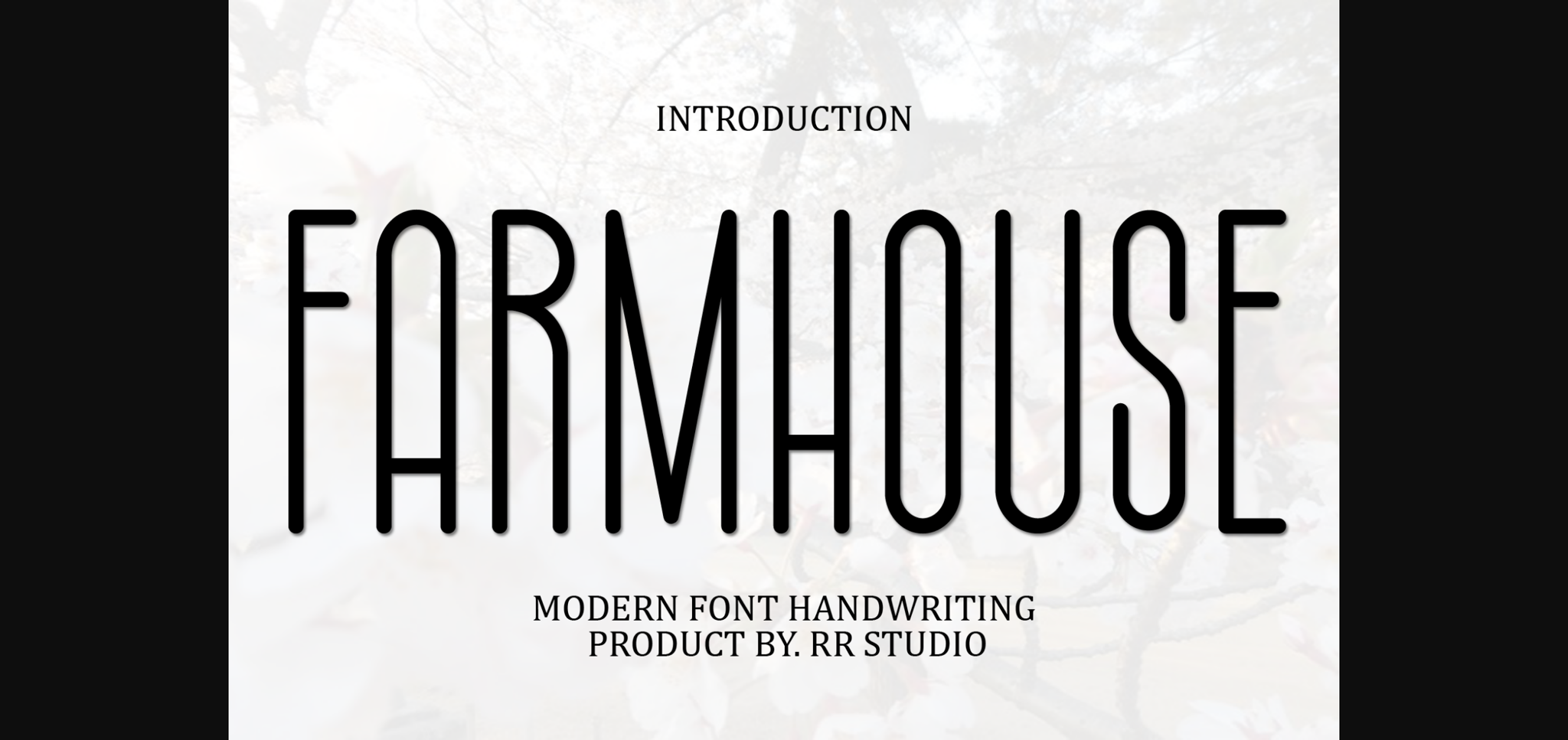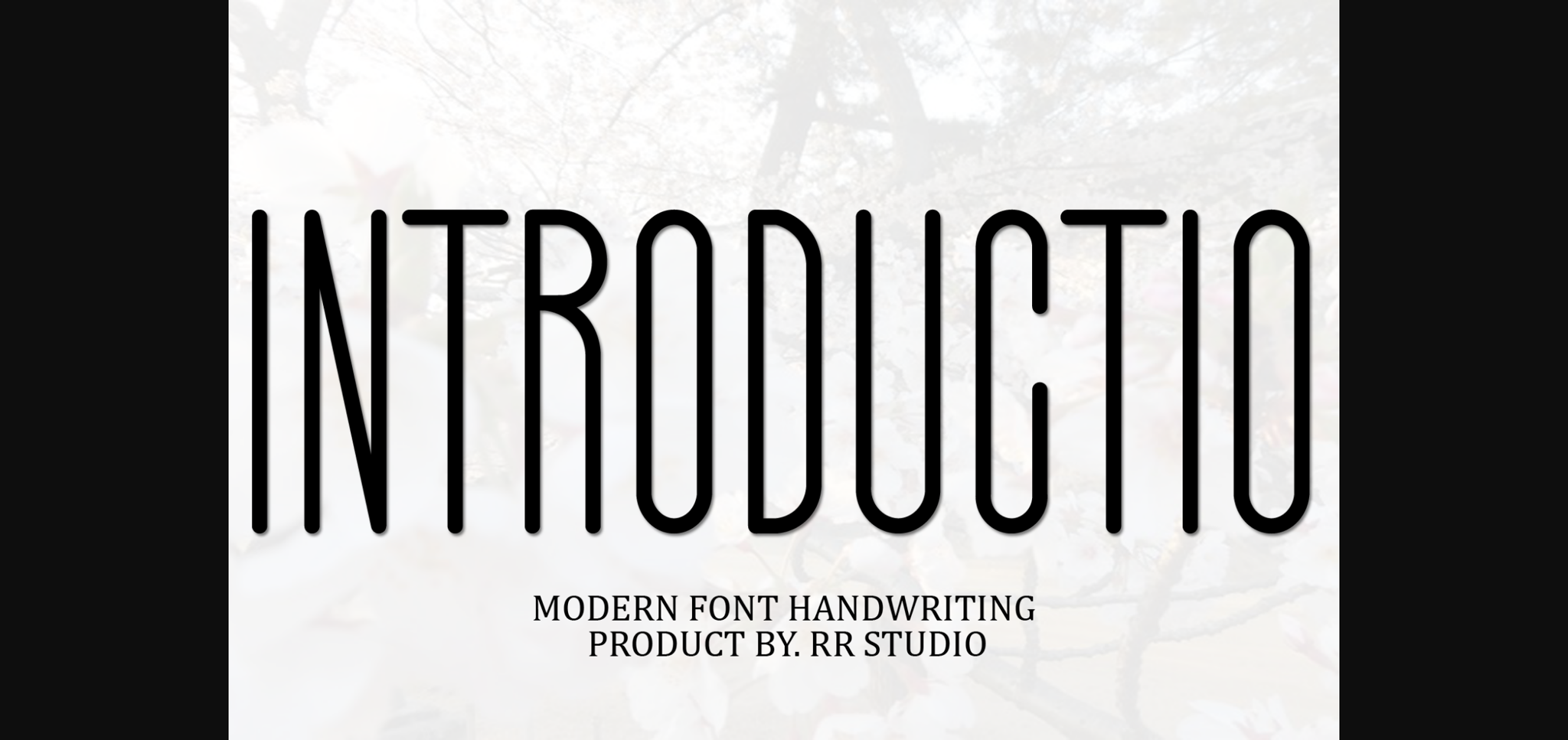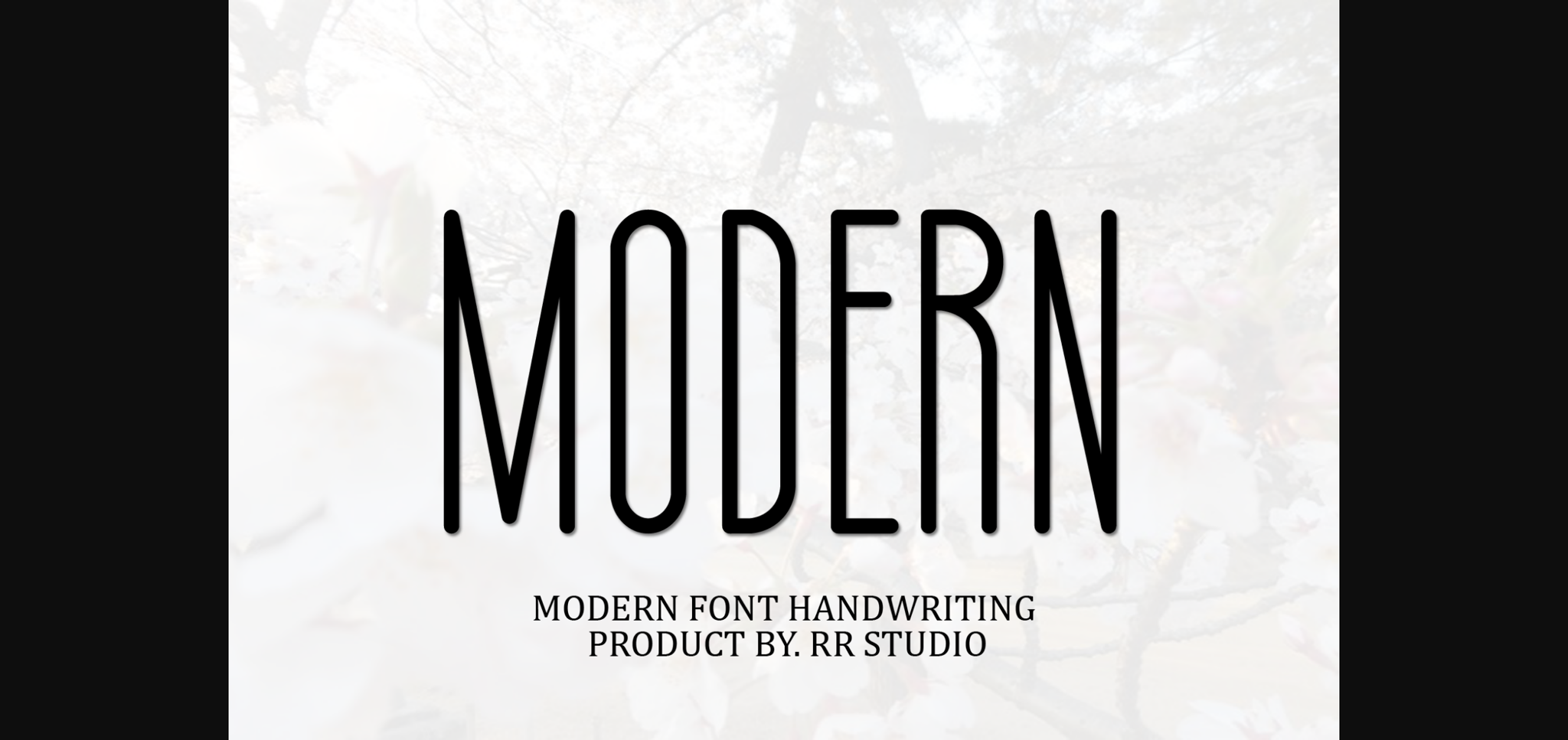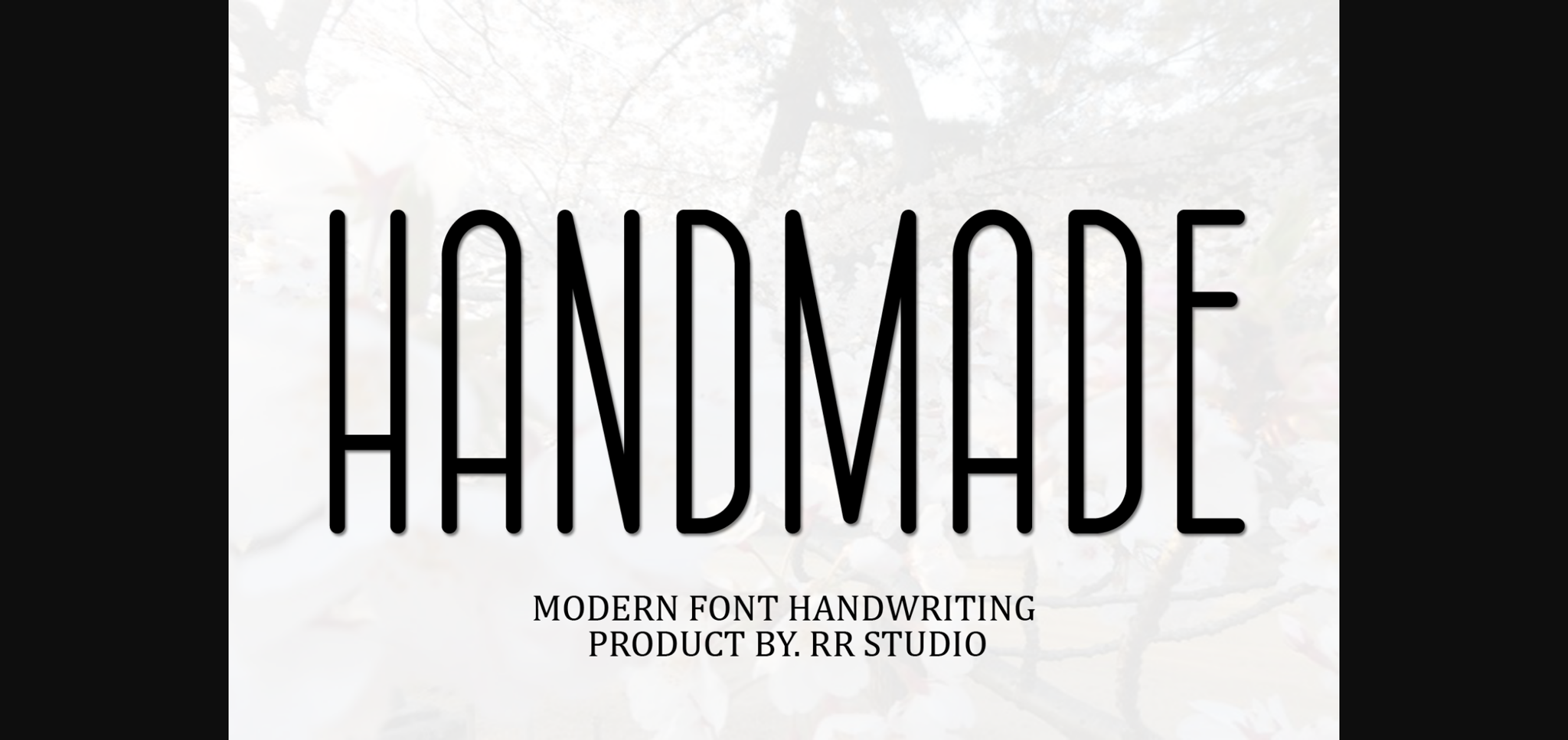
Farmhouse Font
About Farmhouse Font
Farmhouse is a straightforward and tidy sans-serif font that embodies simplicity and clarity. Its clean lines and balanced proportions make it perfect for various design applications, from body text in publications to headers on websites. Farmhouse maintains readability while offering a modern and uncluttered aesthetic for your projects.